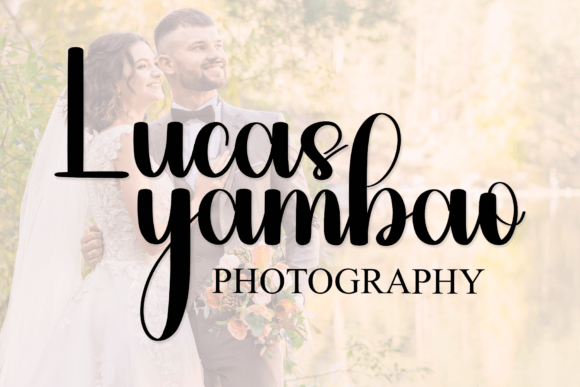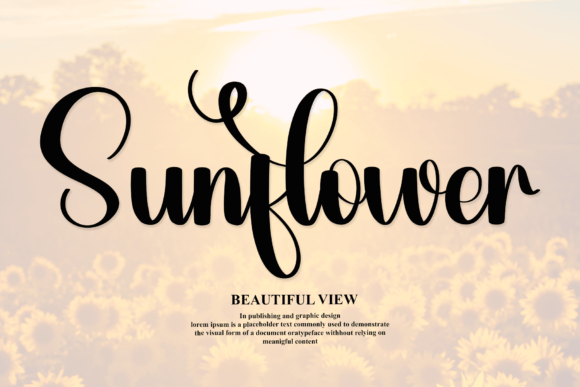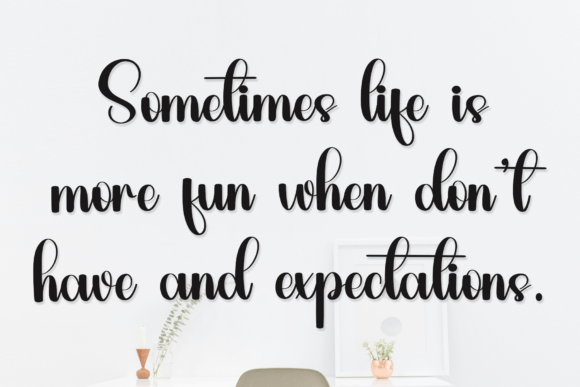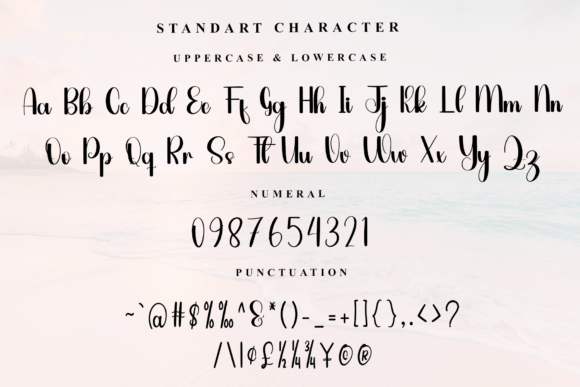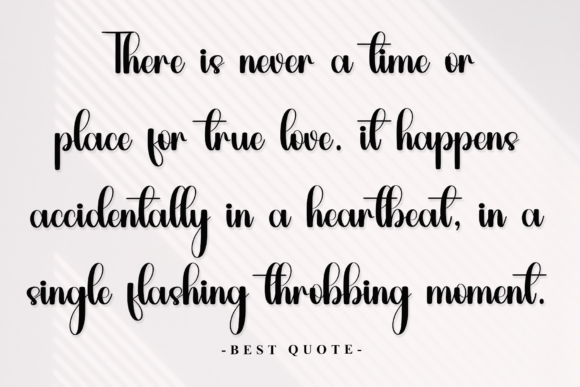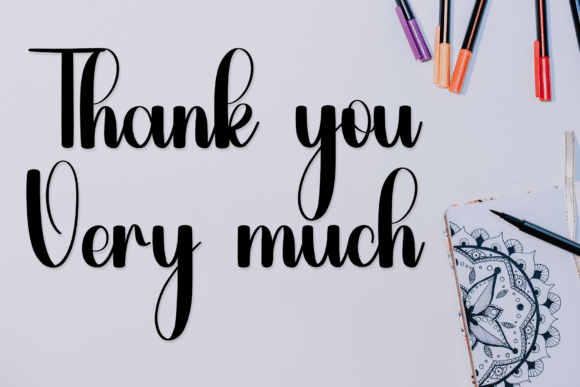
Introduction to Delysha Font
Have you ever been working on a design project, and suddenly, the perfect font pops into your mind? For many designers, this moment is a game-changer. It’s the spark that brings an idea to life, giving it a unique personality and character. One such font that can evoke this creative moment is the Delysha Font – a charming handwritten font that exudes freshness and casual elegance.
Key Features of Delysha Font
- High-quality font design suitable for creative projects, including digital art, graphic design, and typography.
- Includes a range of unique characters, including international characters and symbols, to enhance creative expression.
Honest Review: Delysha Font
I recently came across the Delysha Font and was excited to give it a try for my latest design project. As a designer, I’m always on the lookout for high-quality design resources that can elevate my work.
The Delysha Font offers a beautiful and unique aesthetic that’s perfect for creative projects. I particularly like its clean lines and subtle flair, which adds a touch of sophistication to any design.
- ✨ Great for creative projects, including branding, logos, and marketing materials
However, I do have a few minor complaints. The font’s weight can be a bit inconsistent at times, which may require some adjustments in your design software.
- ⚠️ Font weight can be inconsistent, requiring adjustments in design software
Overall, I’m impressed with the Delysha Font’s design and versatility. While it may have some limitations, it’s still a valuable resource for any designer looking to add a touch of elegance to their work.
The Delysha Font is a versatile design resource that can be used in a variety of creative projects, including logos, titles, headings, and body text. It’s a great choice for designers who want a high-quality font that’s easy to use and customize.